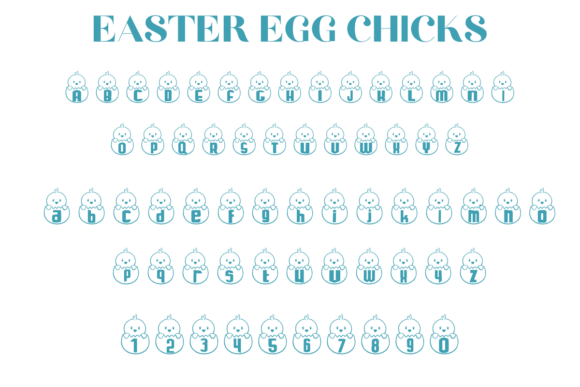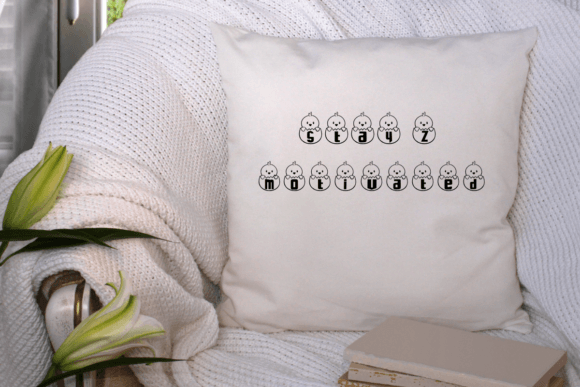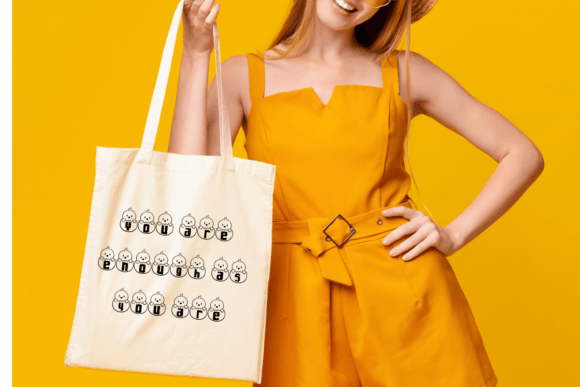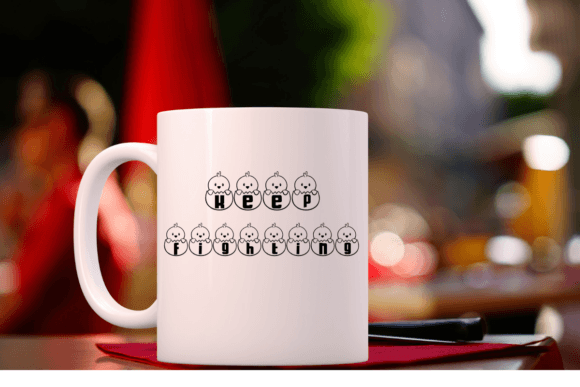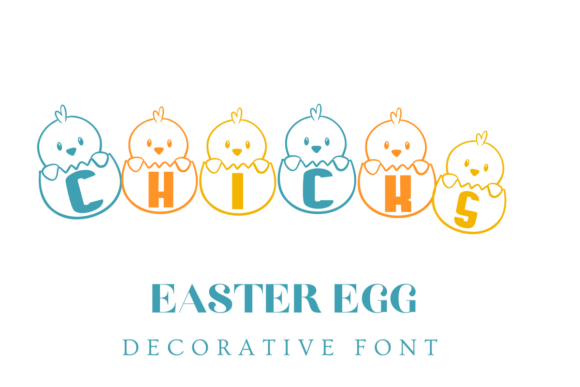
Easter Egg Chicks Font: Elevate Your Designs with this Beautiful Decorative Font
Are you looking for a font that can add a touch of elegance and whimsy to your designs? Look no further than the Easter Egg Chicks Font. This organic and beautiful decorative font features lovely ornaments that are sure to make your creations stand out. In this article, we’ll take a closer look at the Easter Egg Chicks Font and explore how it can elevate your designs.
What is Easter Egg Chicks Font?
Easter Egg Chicks Font is a decorative font that is perfect for designers and crafters who want to add a touch of springtime charm to their work. The font features intricate and beautiful ornaments that are reminiscent of Easter eggs and chicks. The font is highly versatile and can be used for a wide range of design projects, from greeting cards and invitations to social media graphics and blog posts.
Key Features of Easter Egg Chicks Font
So, what makes Easter Egg Chicks Font so special? Here are some of its key features:
- Organic and Hand-Drawn Design: The Easter Egg Chicks Font features an organic and hand-drawn design that gives it a unique and personal touch.
- Lovely Ornaments: The font features a range of lovely ornaments, including Easter eggs, chicks, and other springtime-themed designs.
- Highly Versatile: The font can be used for a wide range of design projects, from digital designs to print projects.
- Elegant and Whimsical: The font has an elegant and whimsical feel that makes it perfect for designers and crafters who want to add a touch of springtime charm to their work.
How to Use Easter Egg Chicks Font
So, how can you use Easter Egg Chicks Font in your designs? Here are a few ideas:
- Greeting Cards and Invitations: Use the font to create beautiful and unique greeting cards and invitations for Easter and other springtime holidays.
- Social Media Graphics: Use the font to create eye-catching social media graphics that will help your posts stand out.
- Blog Posts and Articles: Use the font to add a touch of elegance and whimsy to your blog posts and articles.
- Digital Designs: Use the font to create beautiful digital designs, such as wallpapers, phone cases, and more.
Why You Need Easter Egg Chicks Font in Your Font Library
So, why do you need Easter Egg Chicks Font in your font library? Here are a few reasons:
- Unique and Eye-Catching Designs: The font allows you to create unique and eye-catching designs that will help your work stand out.
- Highly Versatile: The font can be used for a wide range of design projects, making it a valuable addition to your font library.
- Elegant and Whimsical: The font has an elegant and whimsical feel that makes it perfect for designers and crafters who want to add a touch of springtime charm to their work.
In conclusion, Easter Egg Chicks Font is a beautiful and versatile decorative font that can elevate any design project. With its organic and hand-drawn design, lovely ornaments, and highly versatile nature, this font is a valuable addition to any font library. Whether you’re a designer or crafter, Easter Egg Chicks Font is sure to become a go-to font in your design arsenal.